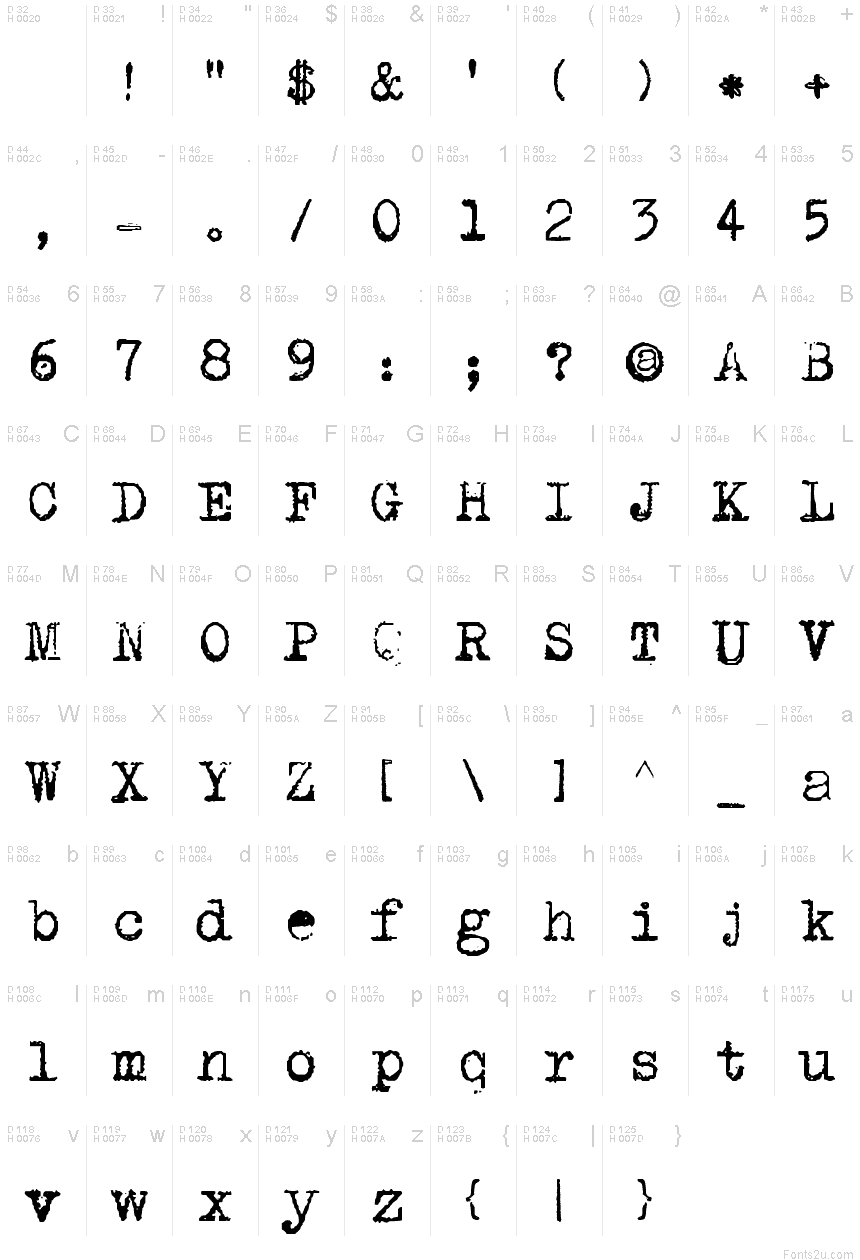
DKP.I. by David Kerkhoff is a free distorted display font with the blunt proportions and slab serifs of battered typewriter lettering. Broken strokes and chipped contours resemble a rough, uneven stamp.
Poster design is its strongest setting, especially for underground music, horror events, or theatrical promotions with a damaged print aesthetic. The same distressed, mechanical texture also suits album packaging and game graphics, linking those applications through a convincing sense of wear.